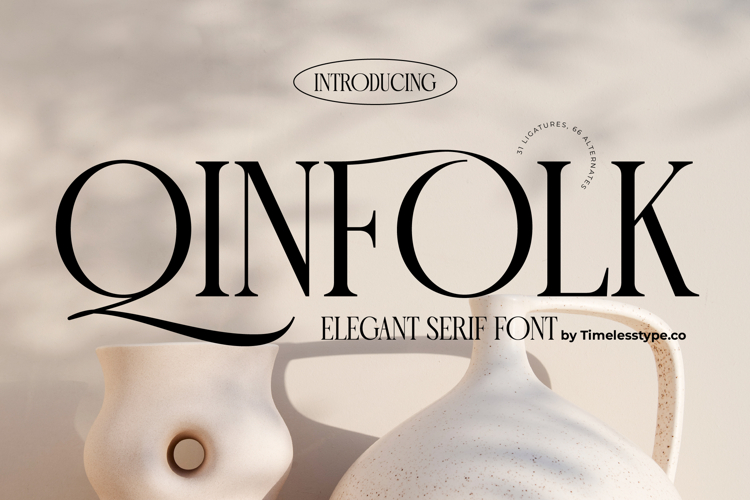
Qinfolk - Elegant Serif Font
Discover the epitome of typographic refinement with Qinfolk - Elegant Serif Font, a truly exceptional typeface designed to imbue your projects with unparalleled sophistication. This remarkable font effortlessly commands attention through its striking high-contrast strokes and exquisitely crafted serifs, creating an instant impression of luxury and elevated design. It’s the definitive choice for those seeking to convey a distinguished and sophisticated aesthetic.
Crafted with meticulous attention to detail, Qinfolk - Elegant Serif Font boasts a delicate interplay of thick and thin lines, lending it a graceful fluidity. Beyond its inherent beauty, this font is a designer's dream, featuring extensive ligatures and alternates—including 31 ligatures and 66 alternates—that unlock unparalleled creative freedom. These stylistic additions enable truly unique and custom typographic compositions, ensuring your brand identity is both memorable and distinctive.